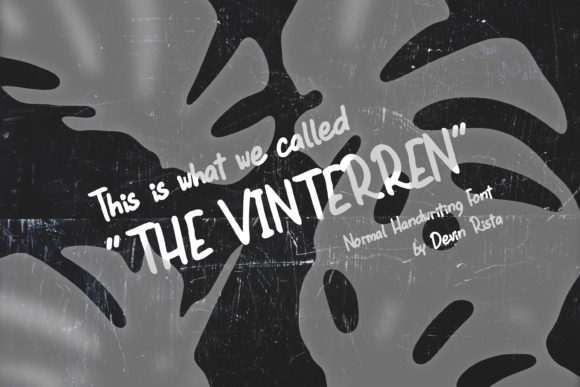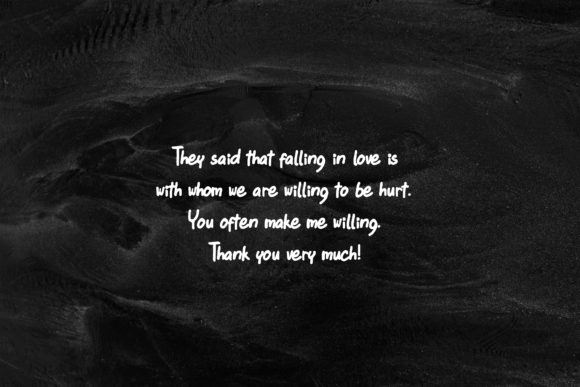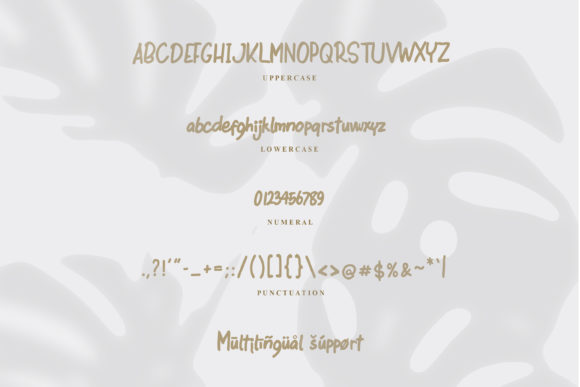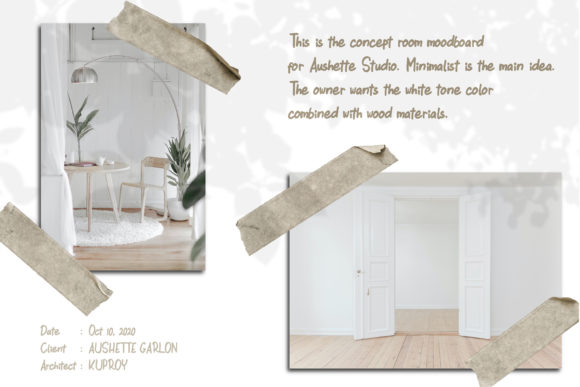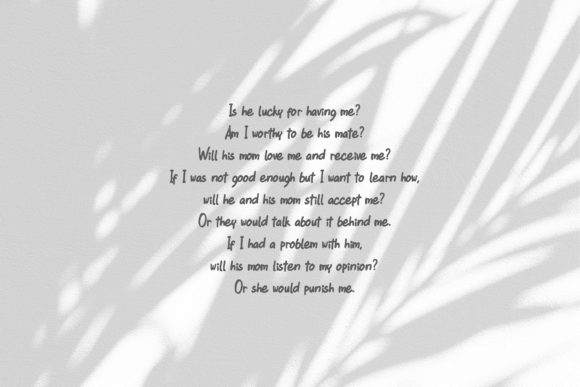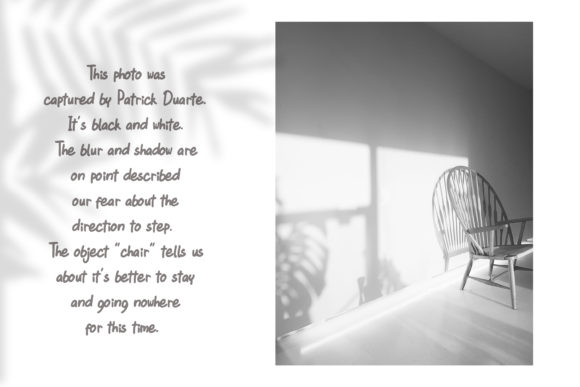
The Vinterren Font
About The Vinterren Font
Introducing The Vinterren: The Casual and Clean Script Font
Step into a world of casual elegance with The Vinterren, a clean script font that exudes a trendy and stylish vibe. With its casual yet refined appeal, The Vinterren is perfect for a wide range of design projects. Whether you’re working on branding, product packaging, invitations, quotes, t-shirts, labels, posters, logos, or anything else, The Vinterren will undoubtedly be a tremendous hit, making your designs stand out with a touch of effortless charm.
The Vinterren’s casual and clean script brings a sense of simplicity and sophistication to your designs. Its letterforms flow with a seamless beauty, making your text exude a delightful and trendy energy.
As a font that combines casualness with elegance, The Vinterren becomes the go-to choice for projects that demand a touch of effortless style and versatility. Its trendy appeal ensures that your work resonates with a contemporary and refined look.
Embrace the versatility of The Vinterren as you embark on your creative journey. Let it be the font that elevates your designs, adding a sense of charm and trendiness in every project.
As you explore the possibilities of The Vinterren, you’ll find it to be a font that enhances your designs with ease. Its casual and clean script beauty transforms your work, ensuring that your creations leave a lasting impression.
So, let The Vinterren be the font that adds a touch of casual elegance to your designs. Embrace its trendy style, and watch as your branding, product packaging, invitations, and more become a tremendous hit with a sense of effortless allure. With The Vinterren as your go-to font, your designs will resonate with versatility and charm, captivating your audience and leaving a lasting impression. Embrace the casual elegance of The Vinterren and create designs that are truly remarkable and unforgettable!